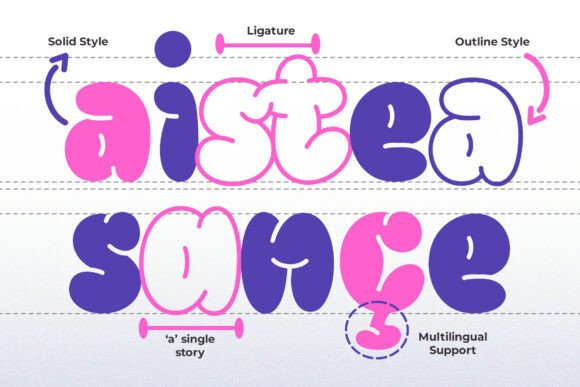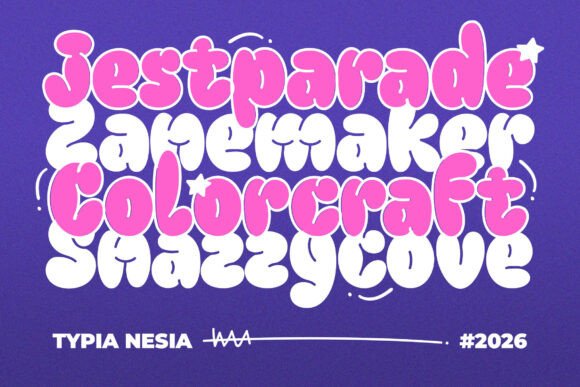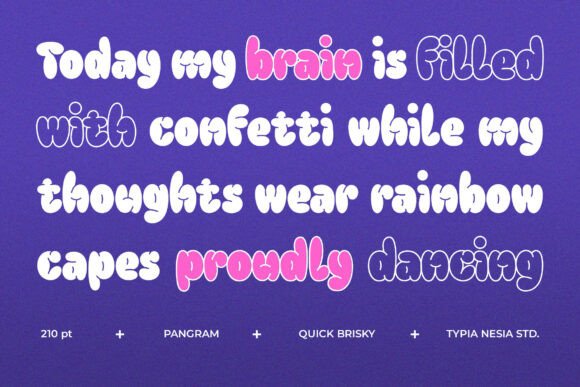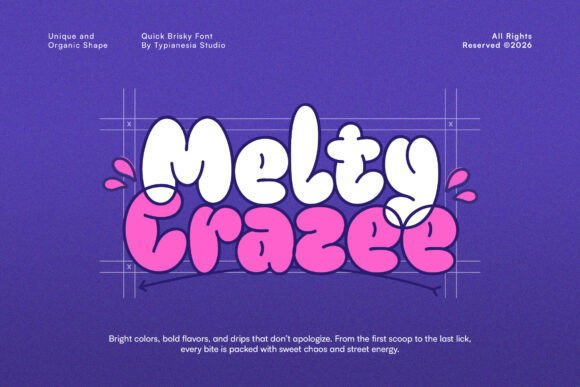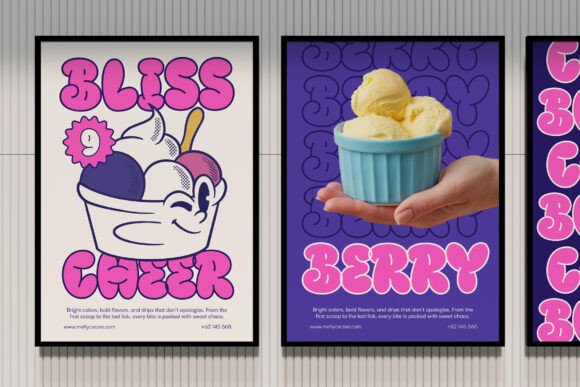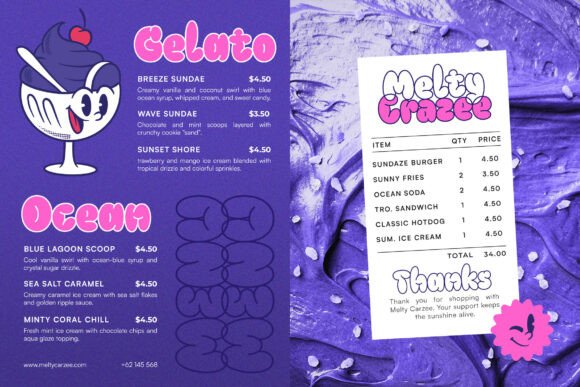
Introduction to Quick Brisky Font Font
Fonts play a crucial role in design, and the Quick Brisky Font font is a typeface that brings both character and versatility to any project. Whether you’re working on a branding project, a website, or a print design, the Quick Brisky Font font offers a unique style that can elevate your work.
Quick Brisky – Bubble Balloon Graffiti Font – Cute & Playful Y2K Street Urban Typeface Quick Brisky is a modern bubble graffiti font with a playful balloon style inspired by urban street art and Y2K design trends.
Designed with bold rounded shapes and soft balloon-like letterforms, its chunky and expressive characters create a fun and eye-catching visual style This font is perfect for logo design, music posters, urban branding, café menus, packaging, stickers, playful digital content, and any project that needs a cheerful, energetic, and youthful vibe.
Key Features of Quick Brisky Font Font
Why Choose Quick Brisky Font Font?
The Quick Brisky Font font is more than just a typeface – it’s a design tool that helps you communicate your message with style and clarity. Its unique character set and versatile design make it suitable for a wide range of applications, from elegant invitations to bold headlines.
With its carefully crafted letterforms and balanced proportions, the Quick Brisky Font font ensures readability and visual appeal across all mediums.
What makes Quick Brisky Font font special?
The Quick Brisky Font font stands out with its unique design, exceptional readability, and versatility across various design applications.